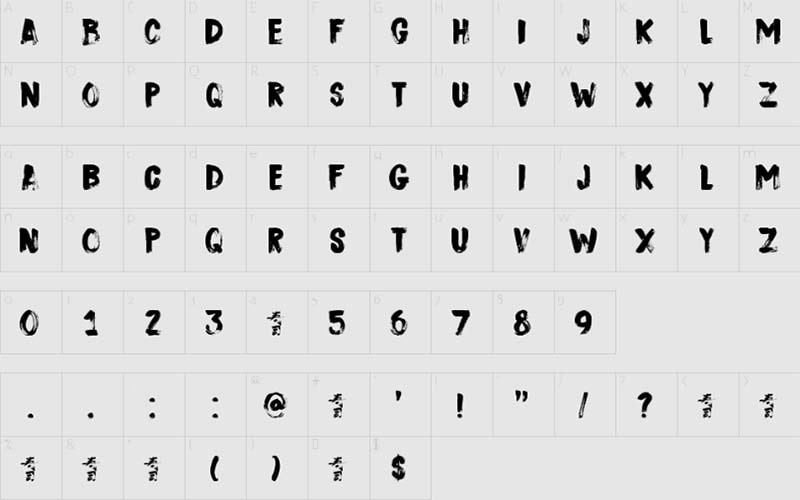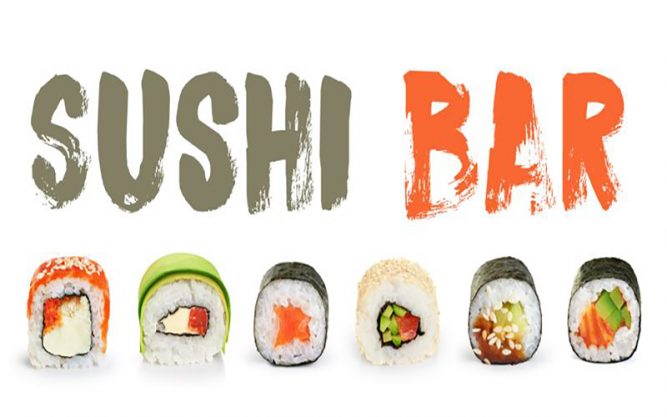
The Dk Sushi Bar Font is a free brush and script typeface that has a heavy and awesome texture. This font designer Handed took charge of designing and releasing it for the first time.
This Japanese style typeface can be found in only one weight and contains 149 unique numbers of characters. It has the best texture created with a paintbrush that looks very attractive in looking.
You can use this magnificent typeface for various purposes such as restaurant names, food recipe names, unique posters, fabric printing, unique quotes, fashion magazines, large display screens, wall paints, and much more.
The designer has designed it in an irregular way just to introduce a unique font. That is why we have watched its structure with interest. So, this is the best choice to make a unique project design.
The best part is, the worse it gets, the more fame it gets. And many experts appreciate that. Once you apply it to your work, agree with me. So, just make a plan and work with it.
That way, we can easily use it in different projects. Because it has a strong ability to make any design unique in a friendly way. You can also use it everywhere you like.